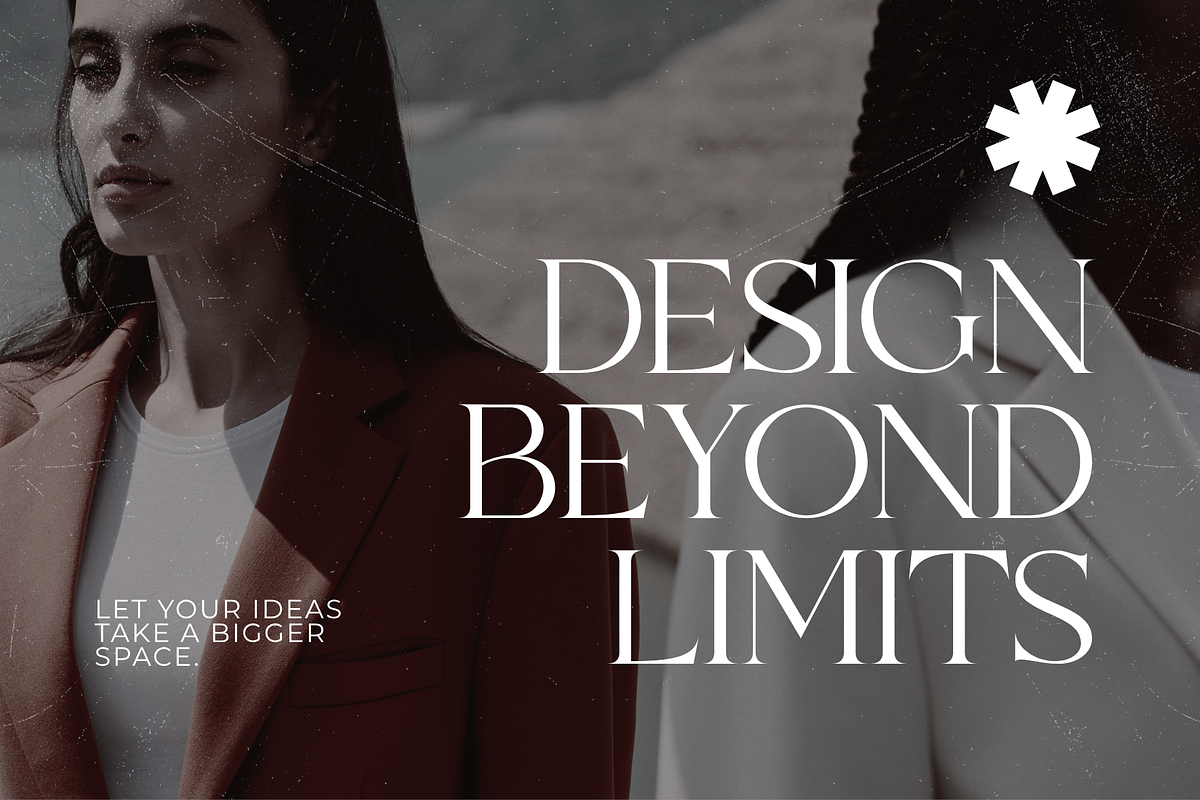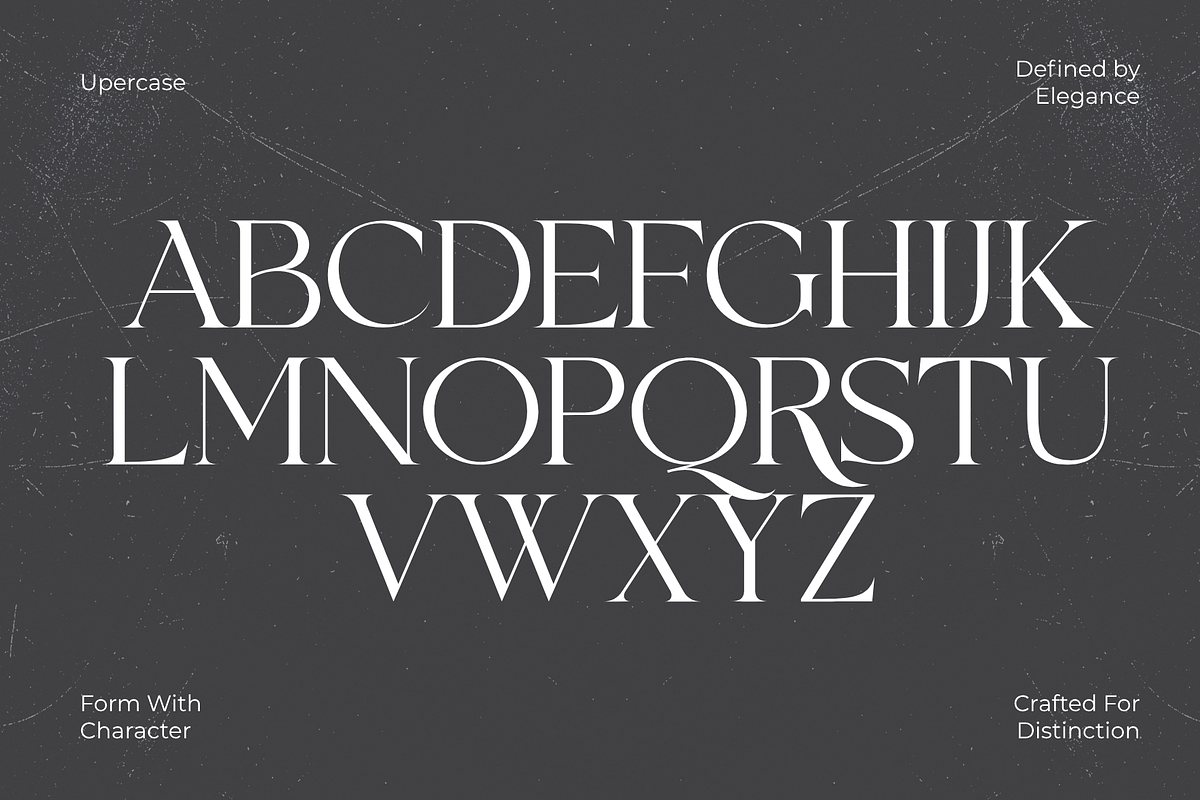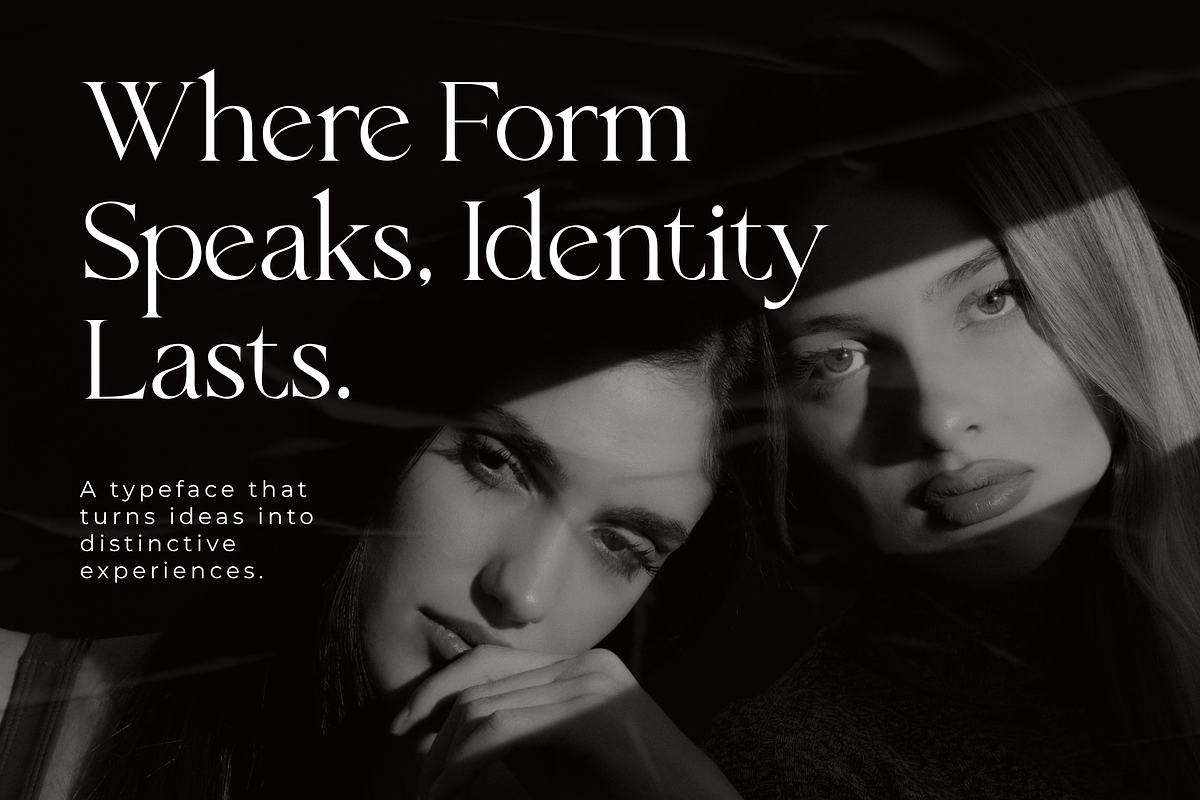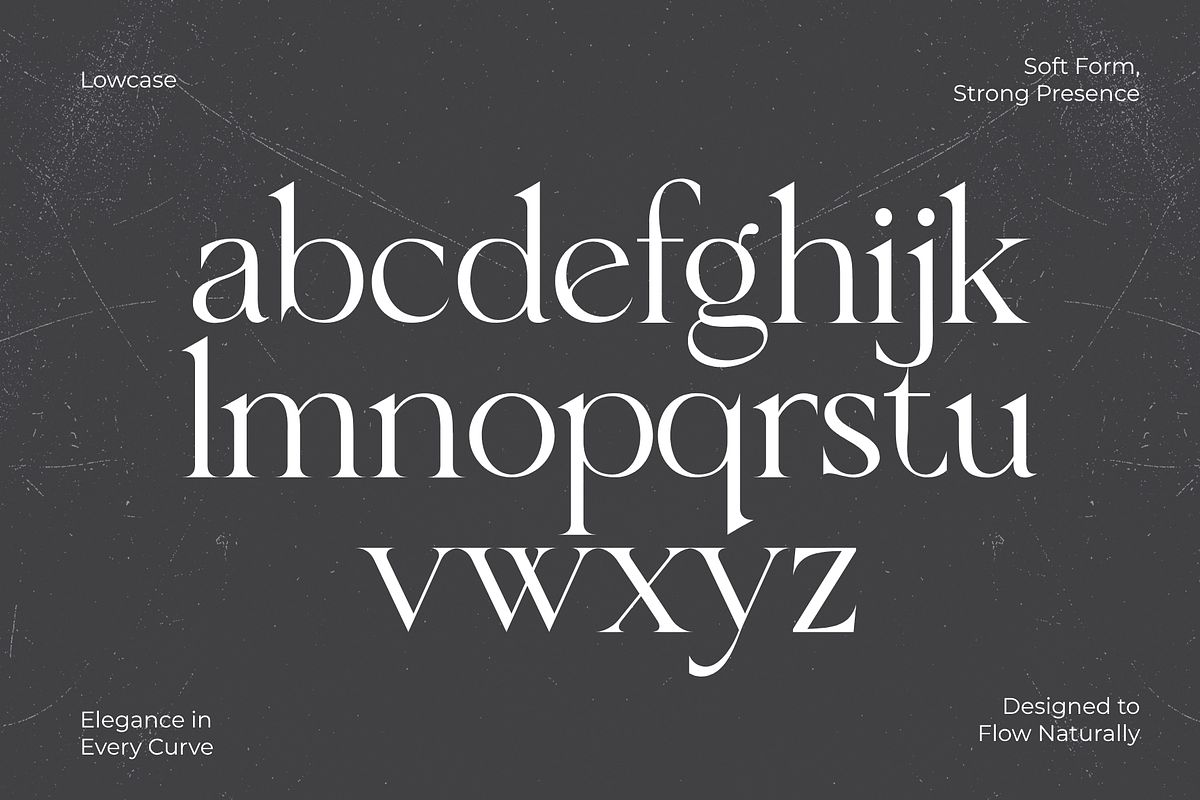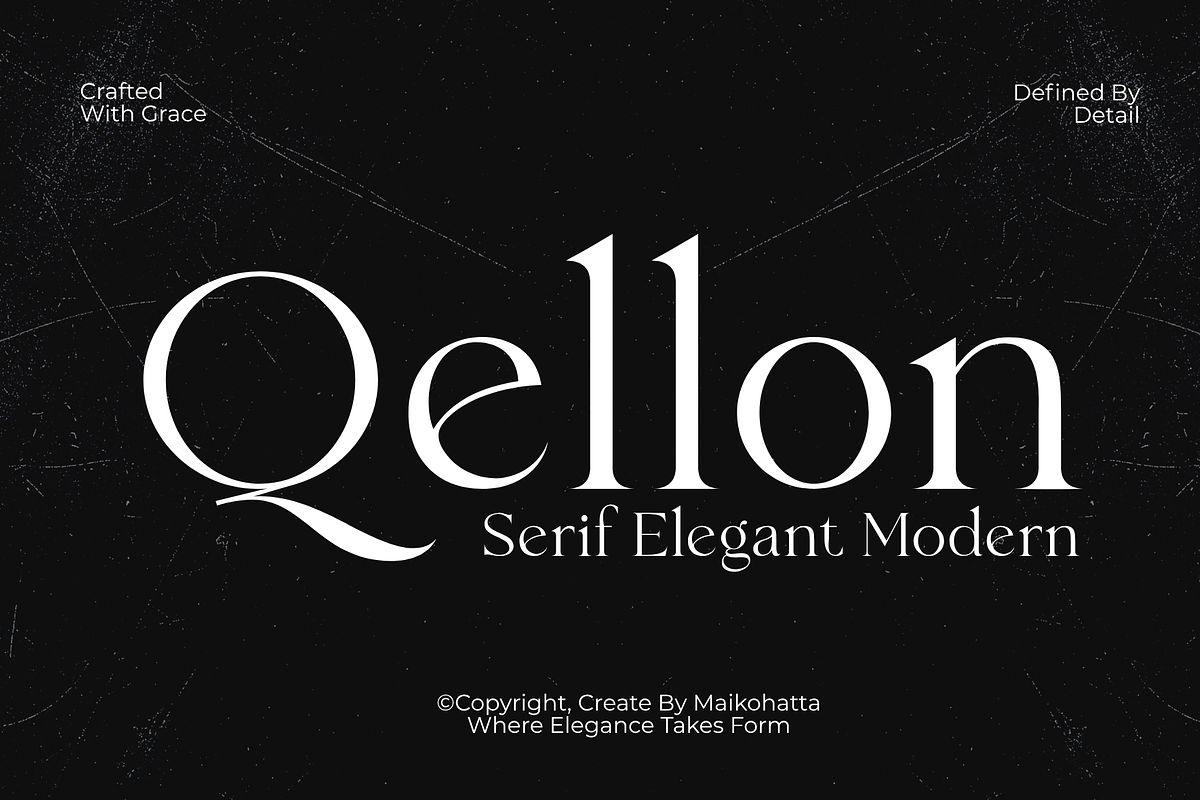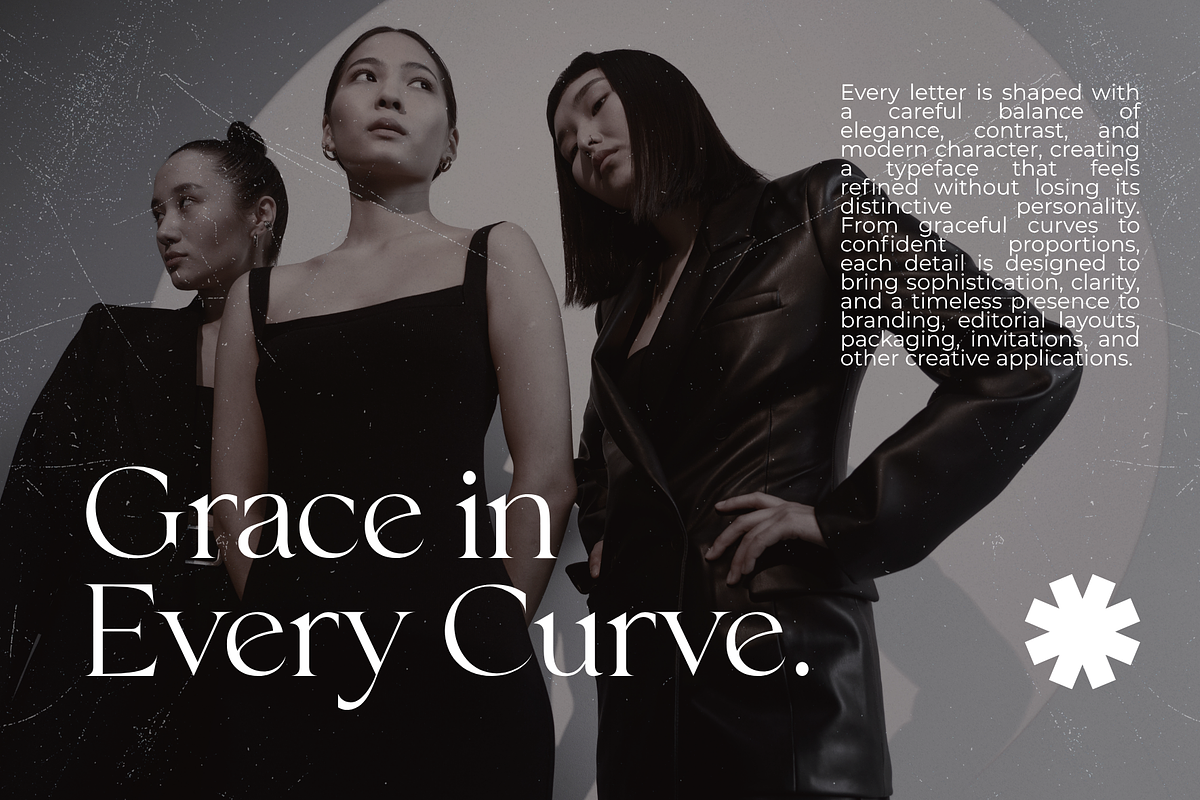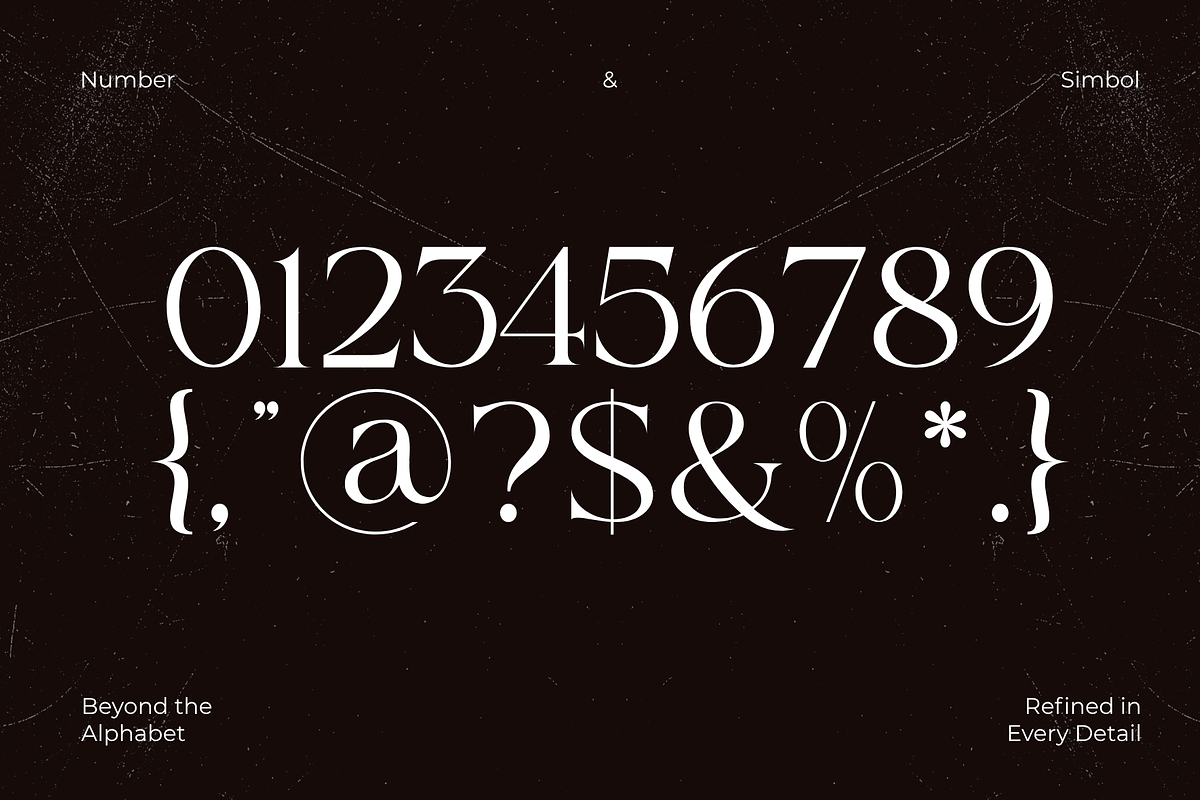
Qellon – Elegant Modern Serif
Introducing our new product Qellon – Elegant Modern Serif
Qellon – Elegant Modern Serif Font is a sophisticated and stylish serif typeface designed to bring a touch of luxury, elegance, and timeless beauty to your creative projects. Featuring high-contrast strokes, refined proportions, graceful curves, and distinctive letterforms, Qellon creates a premium visual impression while maintaining excellent readability. Inspired by modern fashion, editorial typography, and luxury branding, Qellon is perfect for projects that require a sophisticated and exclusive aesthetic. Its elegant character makes it an excellent choice for fashion brands, beauty products, luxury logos, magazines, editorial layouts, invitations, packaging, posters, social media designs, and branding projects. Whether you are creating a high-end brand identity, elegant wedding stationery, fashion magazine headlines, cosmetic packaging, or a sophisticated logo, Qellon adds a polished and contemporary look to your design.